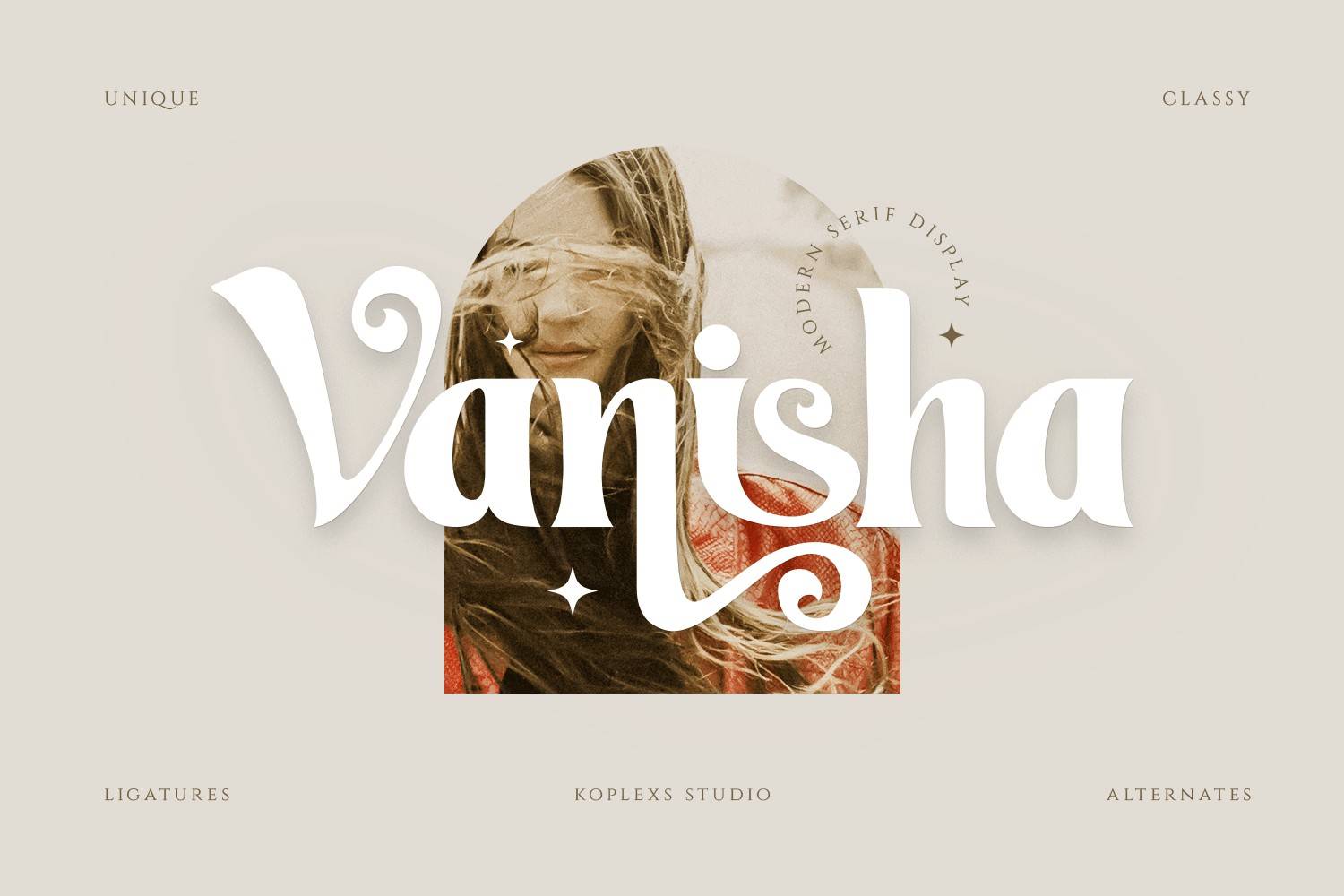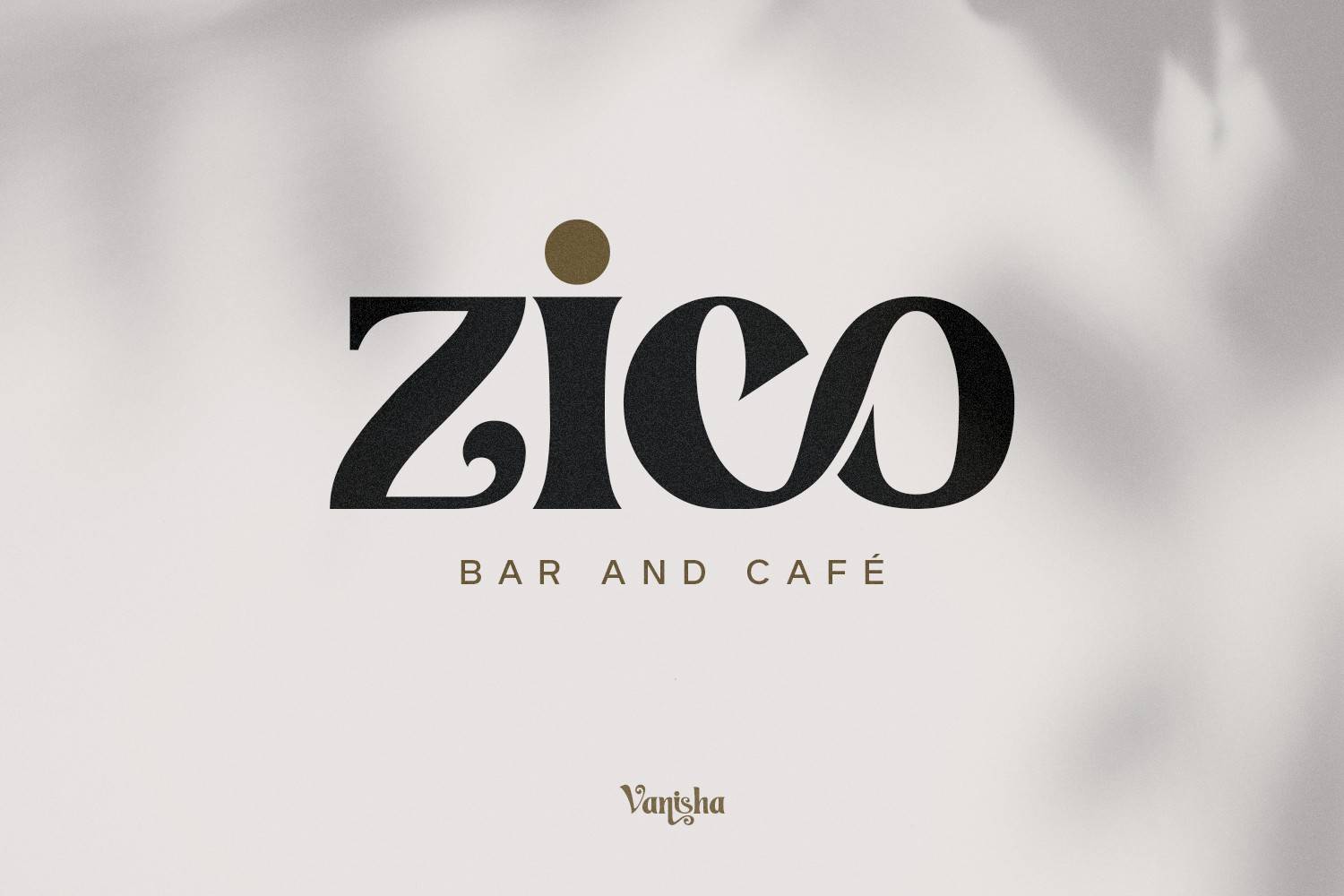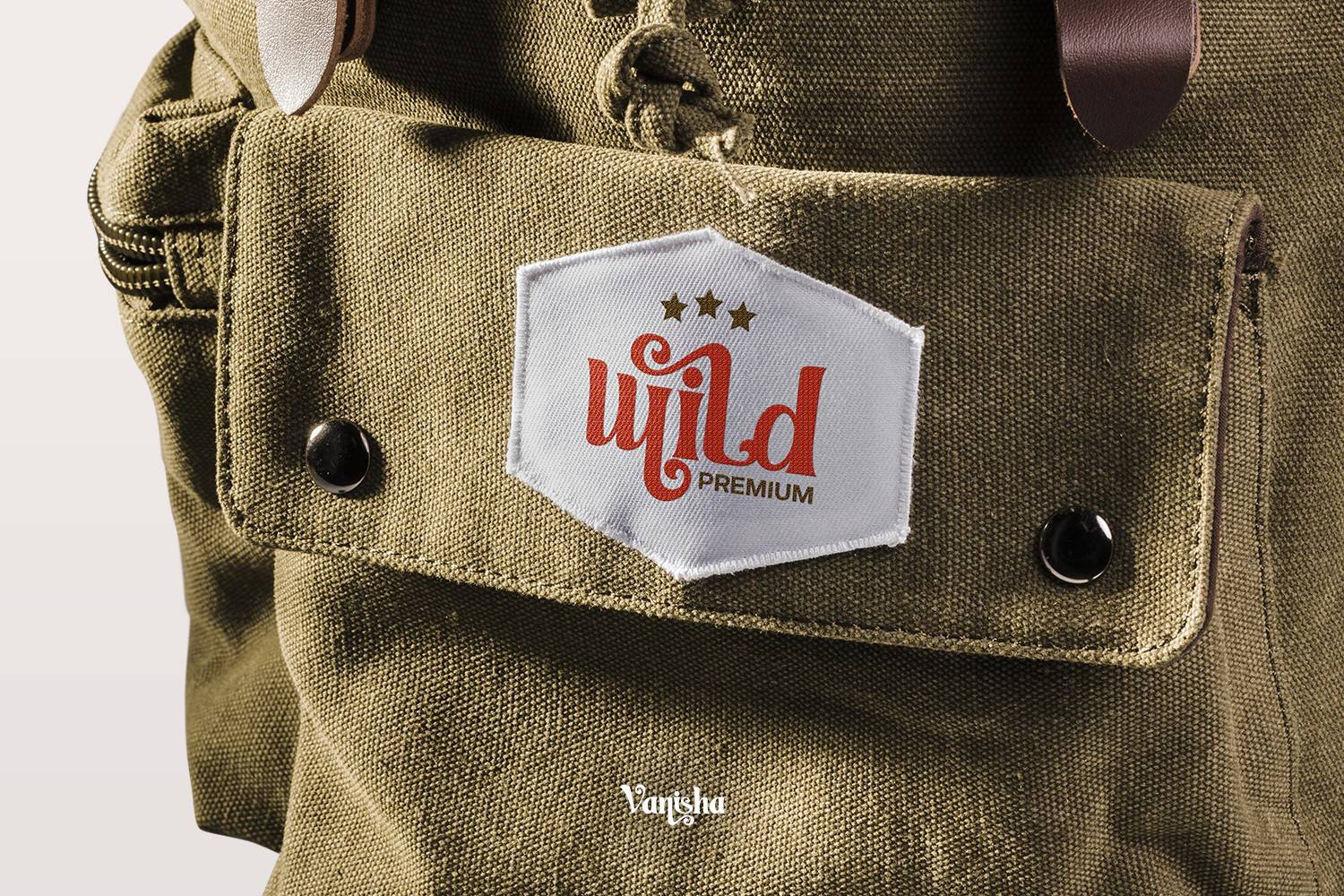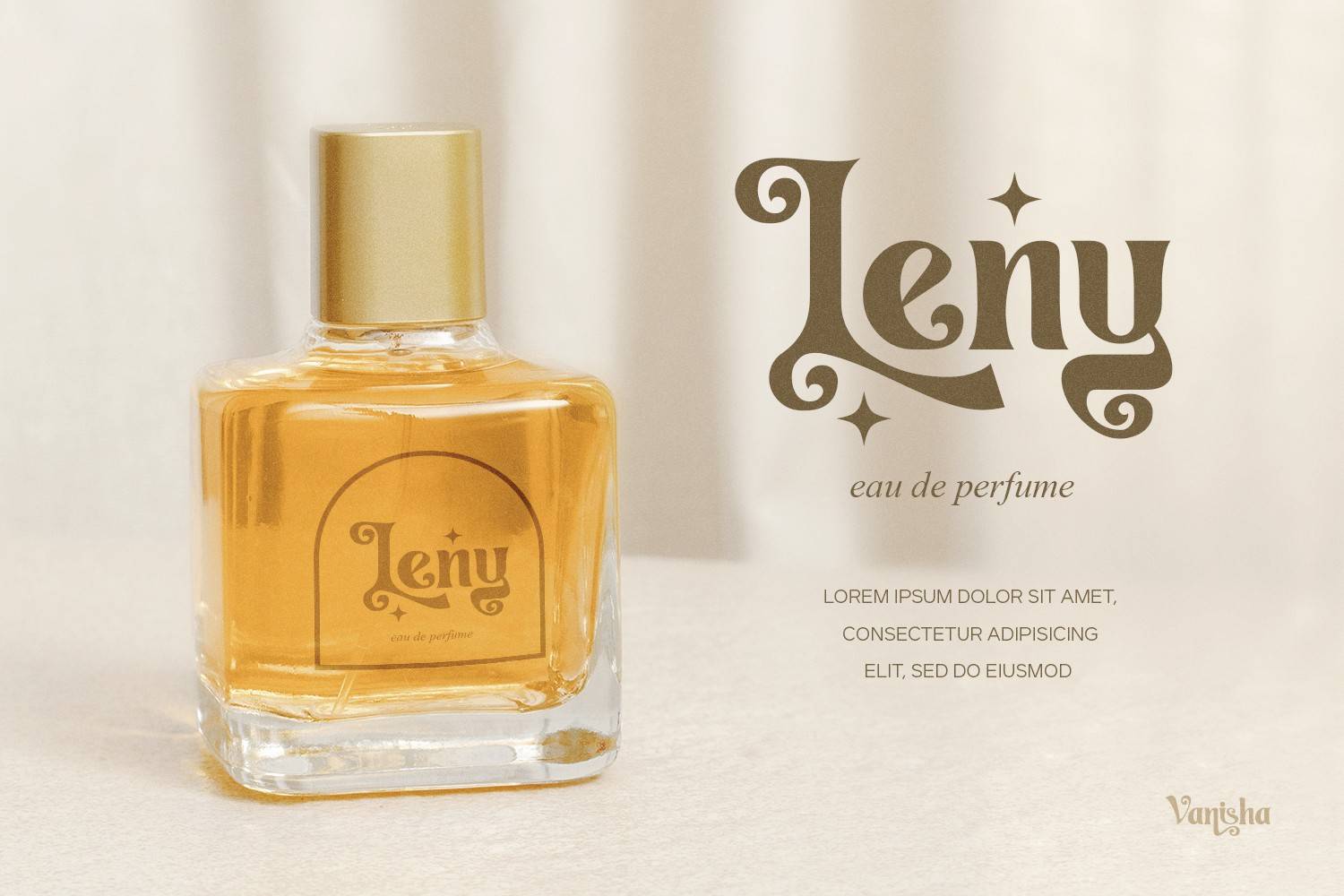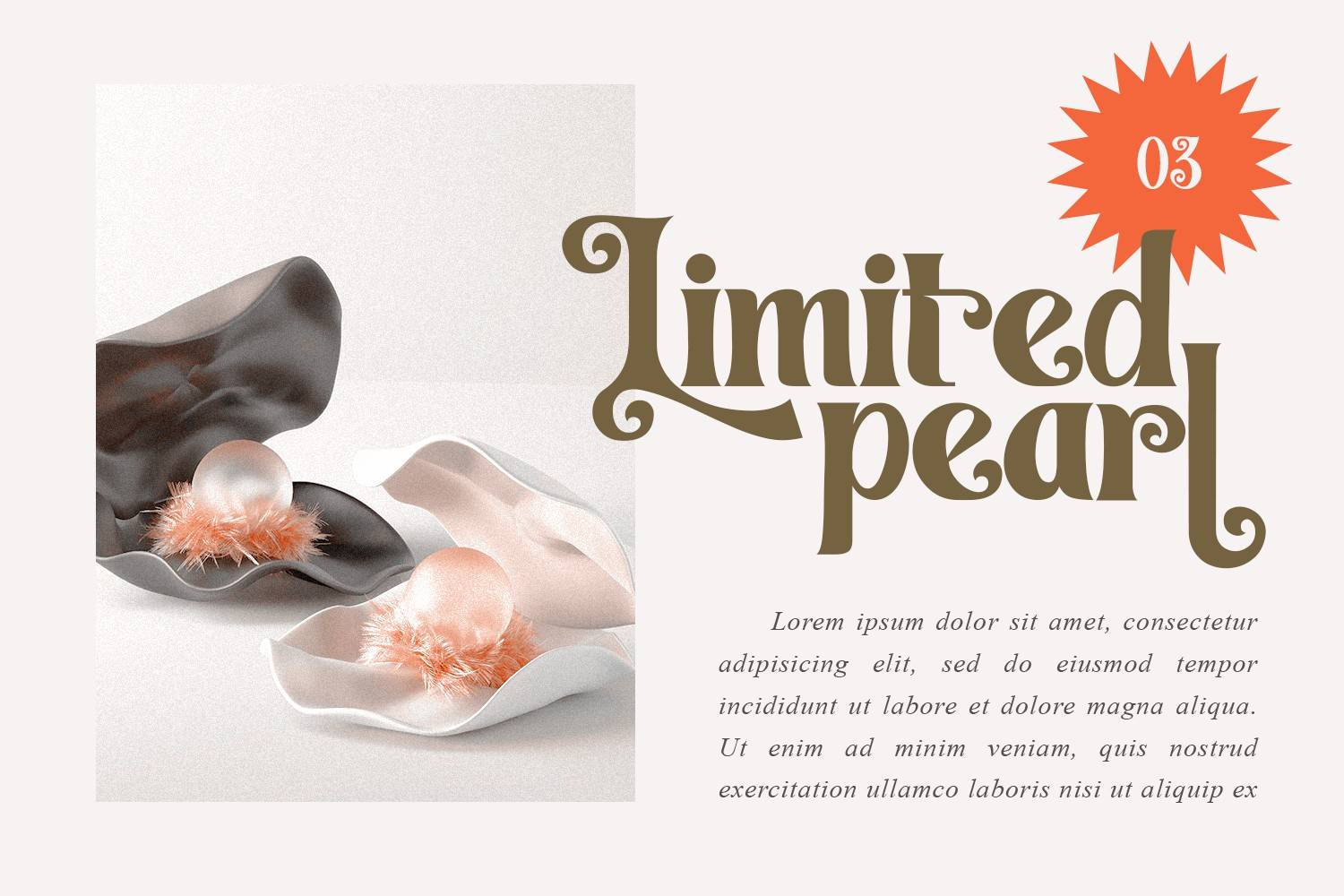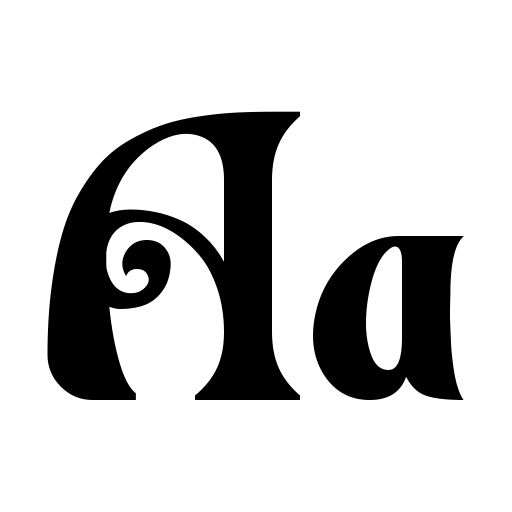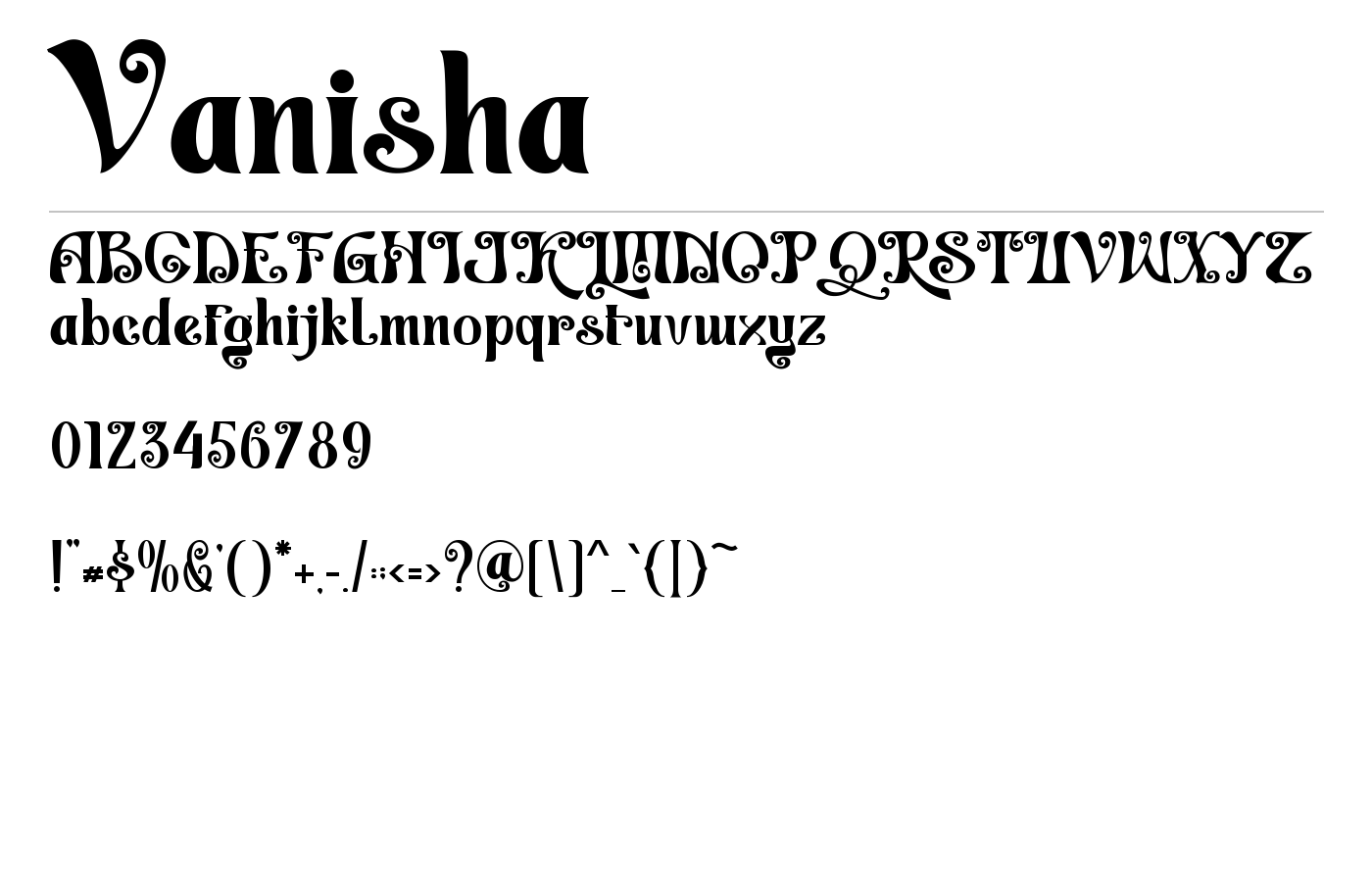
Vanisha is a decorative serif font with a playful and artistic flair, featuring bold strokes combined with whimsical, curled details that add a touch of vintage elegance. Its distinctive letterforms, with high contrast and unique flourishes, make it ideal for stylish headlines, logos, and creative branding that seek a charming, expressive personality. This font works best in designs where a bold, eye-catching display is needed to convey both sophistication and fun.
Vanisha Font
About Vanisha Font
| Font family | Vanisha Font |